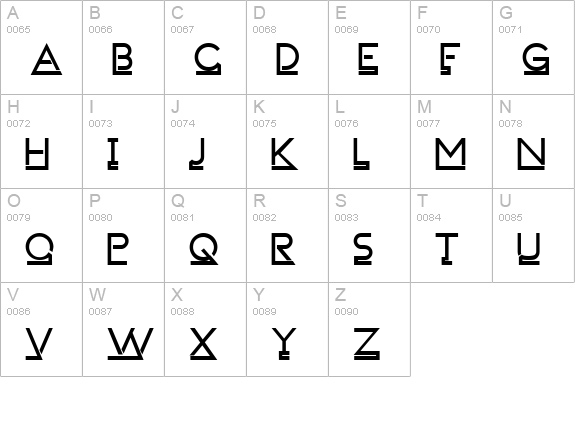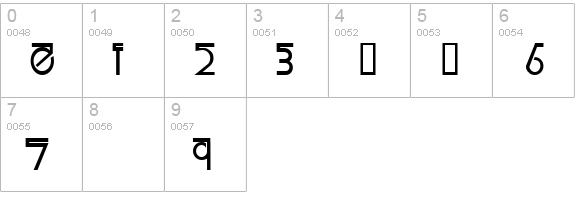
FailedFont 1 Linemorph Font Details
FailedFont 1 Linemorph is a unique and innovative font that combines elements of modern design with a touch of artistic flair. This font features intricate linework and morphing shapes that create a visually stunning effect on the page. With its bold and dynamic appearance, FailedFont 1 Linemorph is sure to make a statement in any project or design. Designed with creativity and versatility in mind, this font is perfect for a wide range of applications including branding, advertising, posters, and more. Whether you're looking to add a touch of sophistication to your next project or make a bold statement, FailedFont 1 Linemorph has you covered. The best part? FailedFont 1 Linemorph is available for free download at FontsMarket.com. So go ahead and give your designs a fresh new look with this captivating font today!